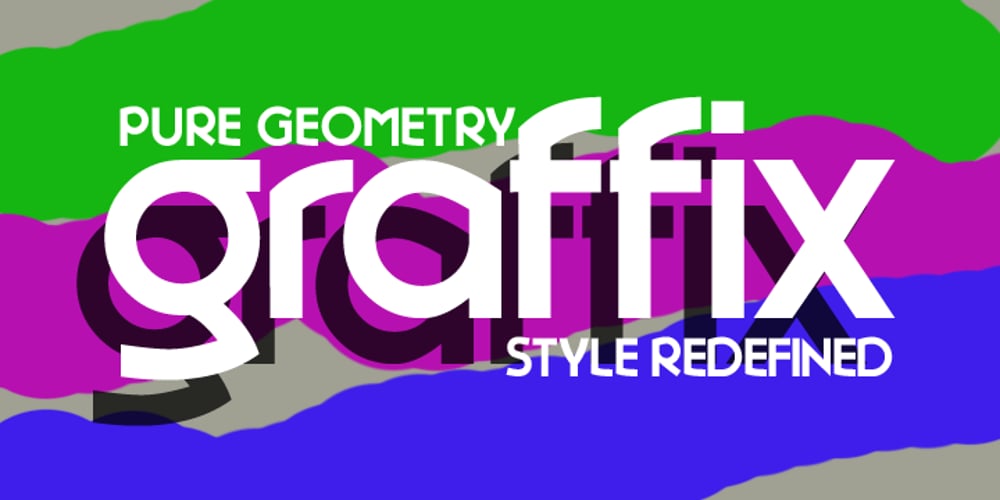
Graffix
Graffix font
Graffix Font Family was designed by Keith Tricker and published by Studio K. Graffix contains 4 styles and family package options. Graffix is best described as a modern classic. A crisp geometric sans serif with just a hint of Art Deco in the roll of the capital A, D & R, and the curvaceous lines of the capital M, V & W. The distinctive tear shaped counters of the lower case a, b, d, p & q give it its essential character, together with such quirky features as the angular descenders of the lower case g and j.